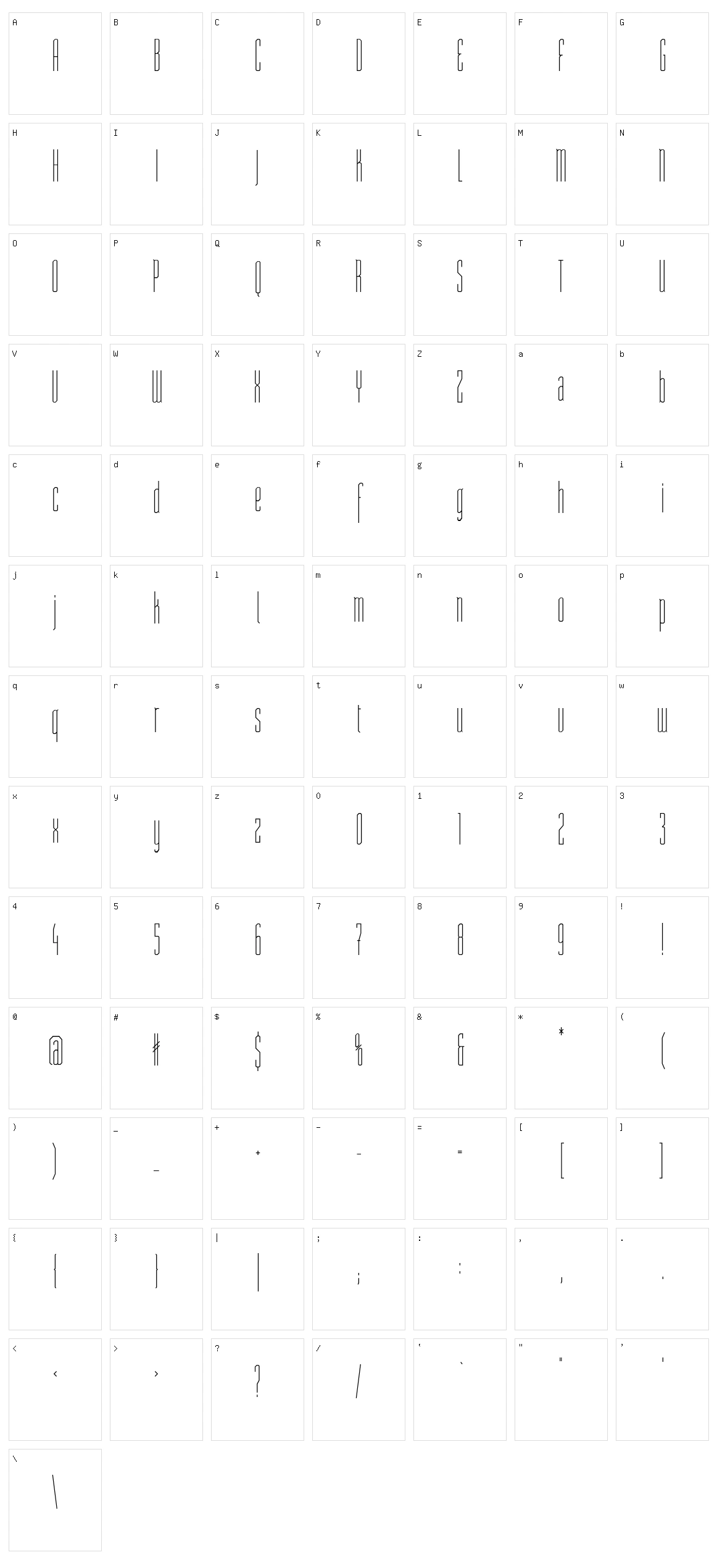
The free font ST Moviehead is carefully designed by Sascha Timplan, showcasing a thoughtful balance of creativity and usability and falls under the Sans serif font style. When you download the ZIP file, it contains only 67.46 KB of font files, making it lightweight and quick to download. Please review the license details below to understand permitted usage and distribution rights. If license information is not available, we recommend using this font for personal projects only or contacting the author directly for commercial usage permissions.